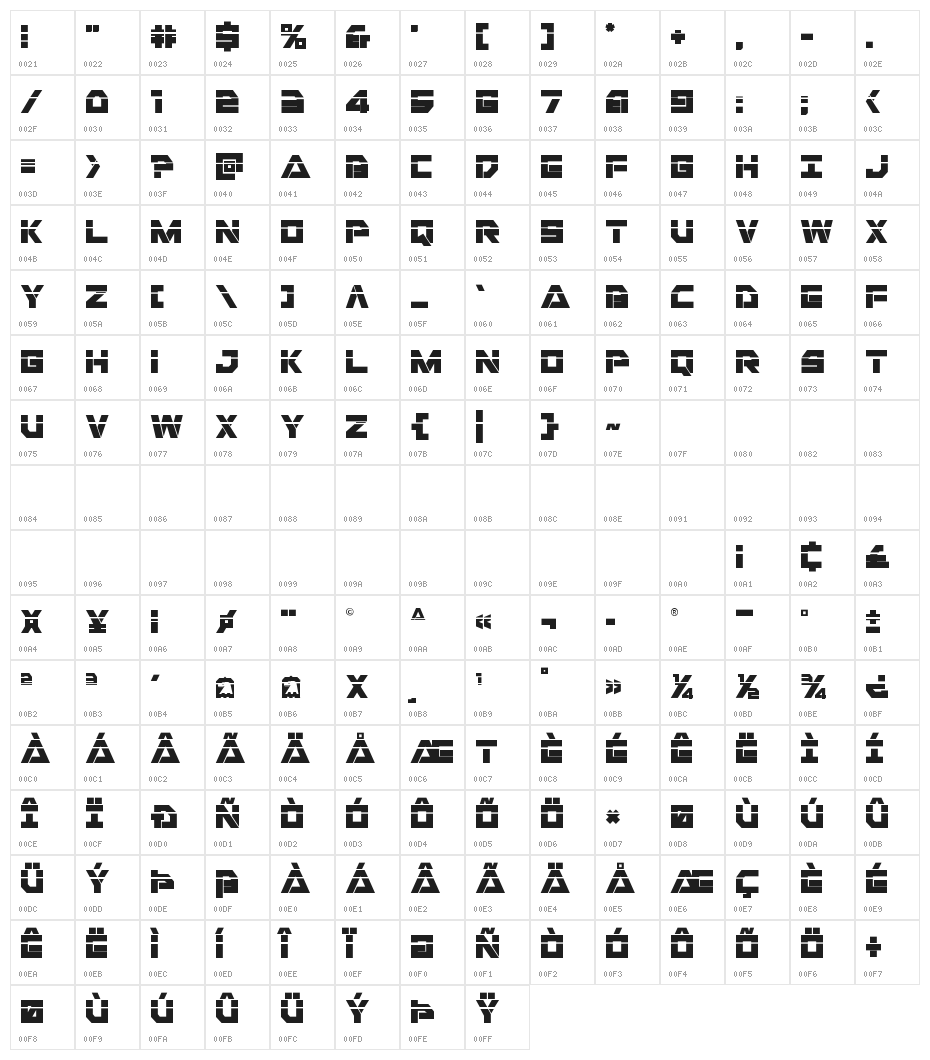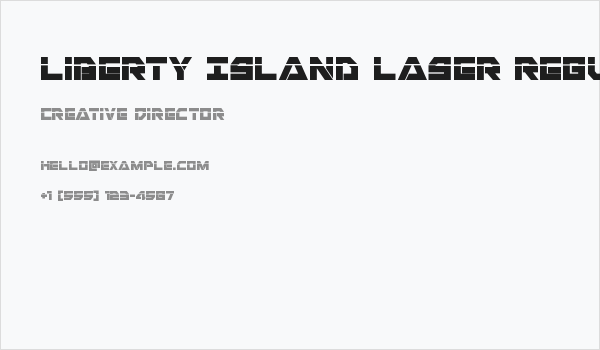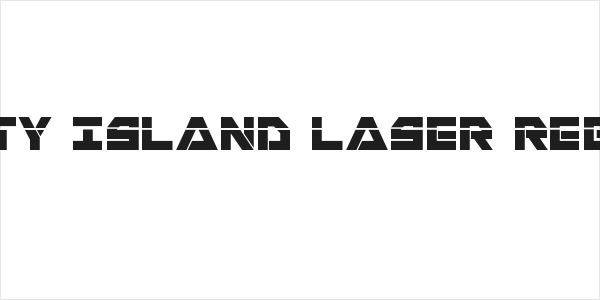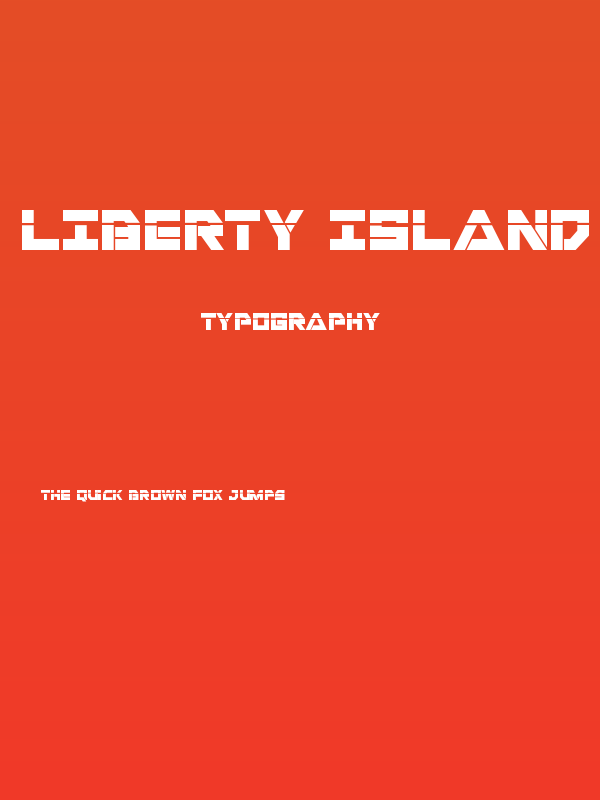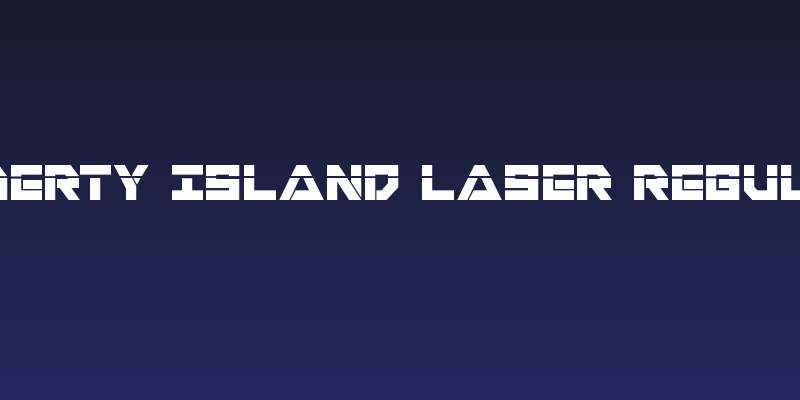
Liberty Island Laser Regular Font
Liberty Island Laser Regular Description
This font features a bold, geometric design with a futuristic and industrial feel. The characters are constructed with sharp angles and straight lines, giving them a blocky and robust appearance. The uppercase and lowercase letters maintain a consistent style, with the lowercase slightly smaller but equally bold. Numbers and special characters follow the same design principles, ensuring uniformity across all glyphs. The font's distinct, angular shapes make it stand out, ideal for projects that require a modern and edgy look.